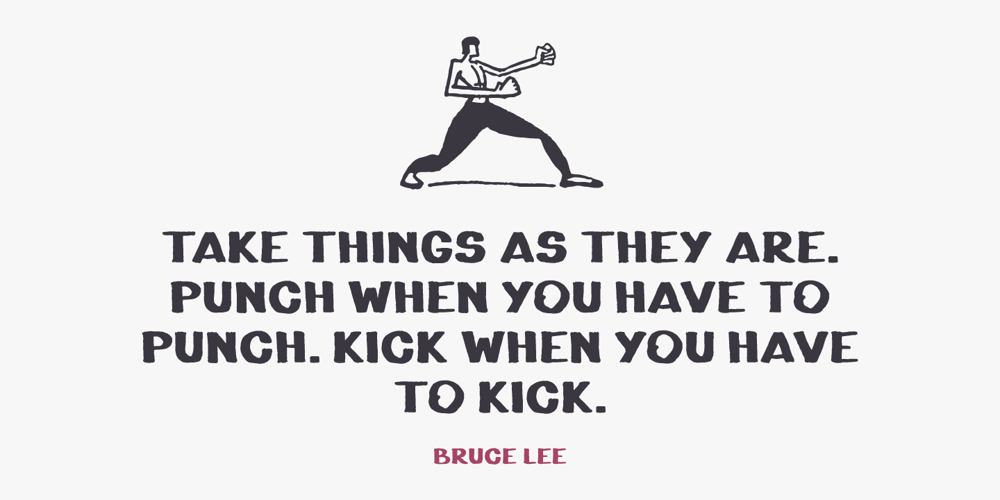
NewMarker
NewMarker font
NewMarker Font Family was designed by Oleg Stepanov and published by Oleg Stepanov. NewMarker contains 1 styles and family package options. NewMarker is a hand-drawn font, made with ink brush. It includes basic latin character set, numerals, currency symbols and basic punctuation.